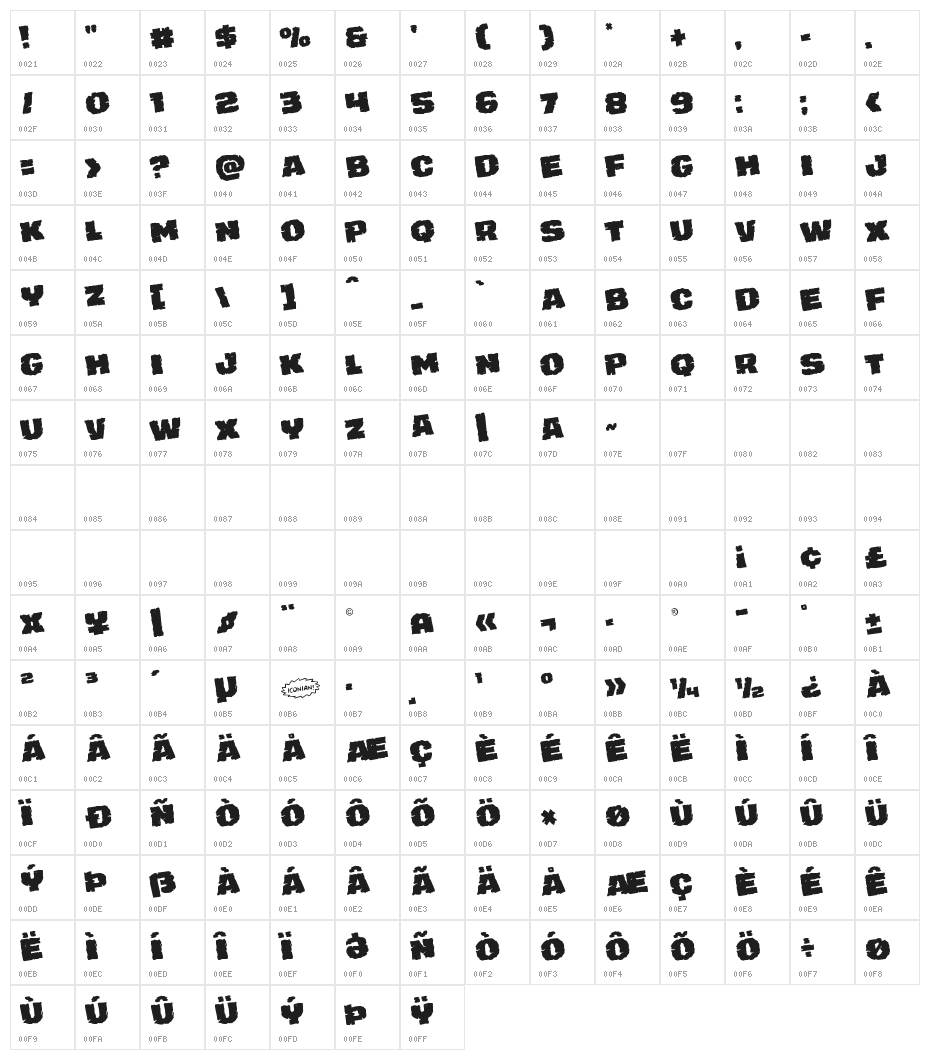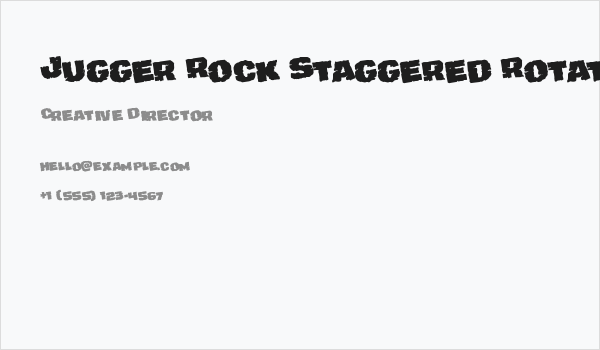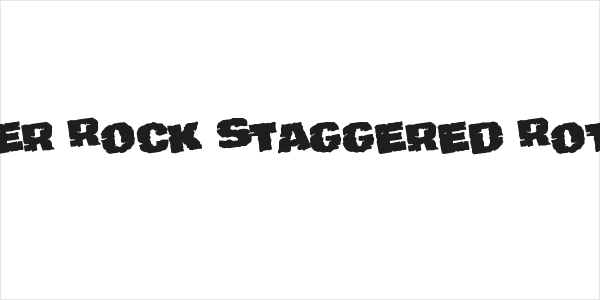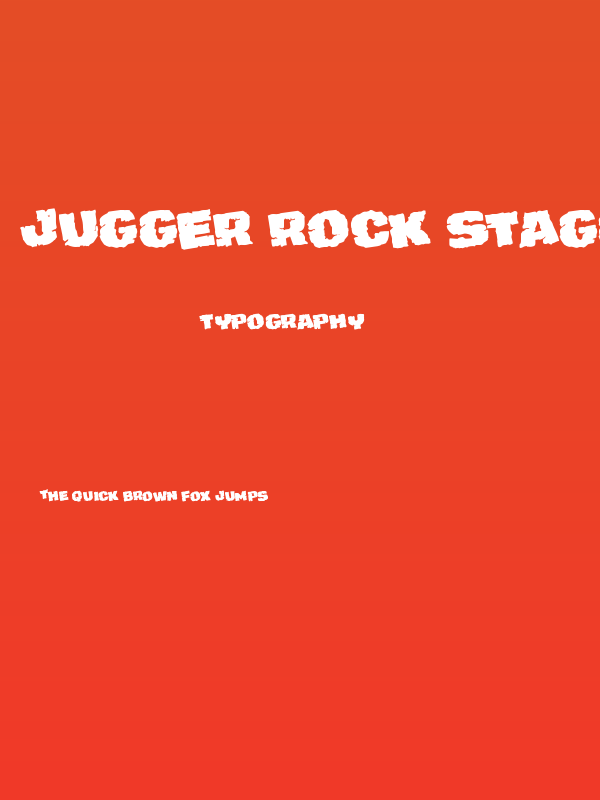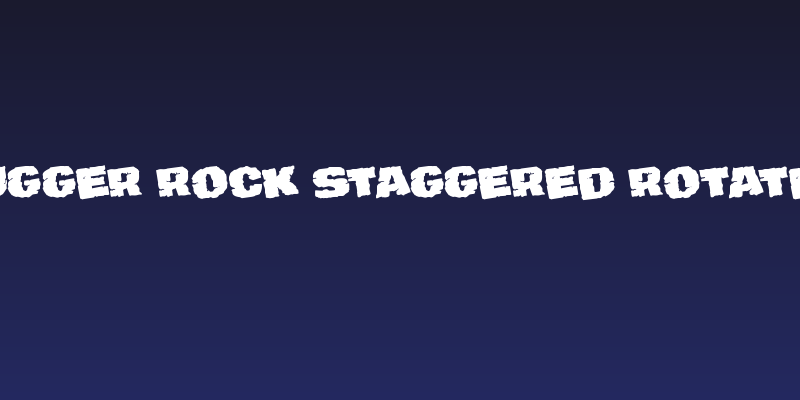
Jugger Rock Staggered Rotated Font
Jugger Rock Staggered Rotated Description
This font features a bold, rugged style with a distressed, textured appearance. Each character appears as if it has been carved from stone, giving it a rough and edgy look. The letters are slightly staggered and rotated, adding to the chaotic and dynamic feel. The uppercase and lowercase letters maintain a consistent weight, while the numbers and special characters follow the same bold and distressed design. This font is perfect for projects that require a strong, impactful presence.
| Proposed Projects | Ideal for posters, album covers, video game titles, and any design needing a strong, edgy impact. |